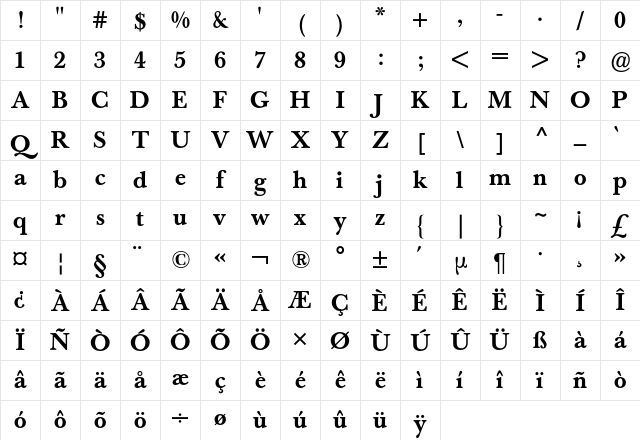
Baskerville Book BQ Regular
Baskerville Book BQ Regular Family
Baskerville Book BQ Regular
Complete Baskerville Book BQ Regular glyph index. Displaying only characters natively supported by Baskerville Book BQ Regular font.
Design Context for Baskerville Book BQ
Baskerville Book BQ is a composed and adaptable typeface that performs quietly and consistently across a wide range of design contexts.
Pro Tip: Use Baskerville Book BQ in both headline and body roles to test its range before committing to a single application.